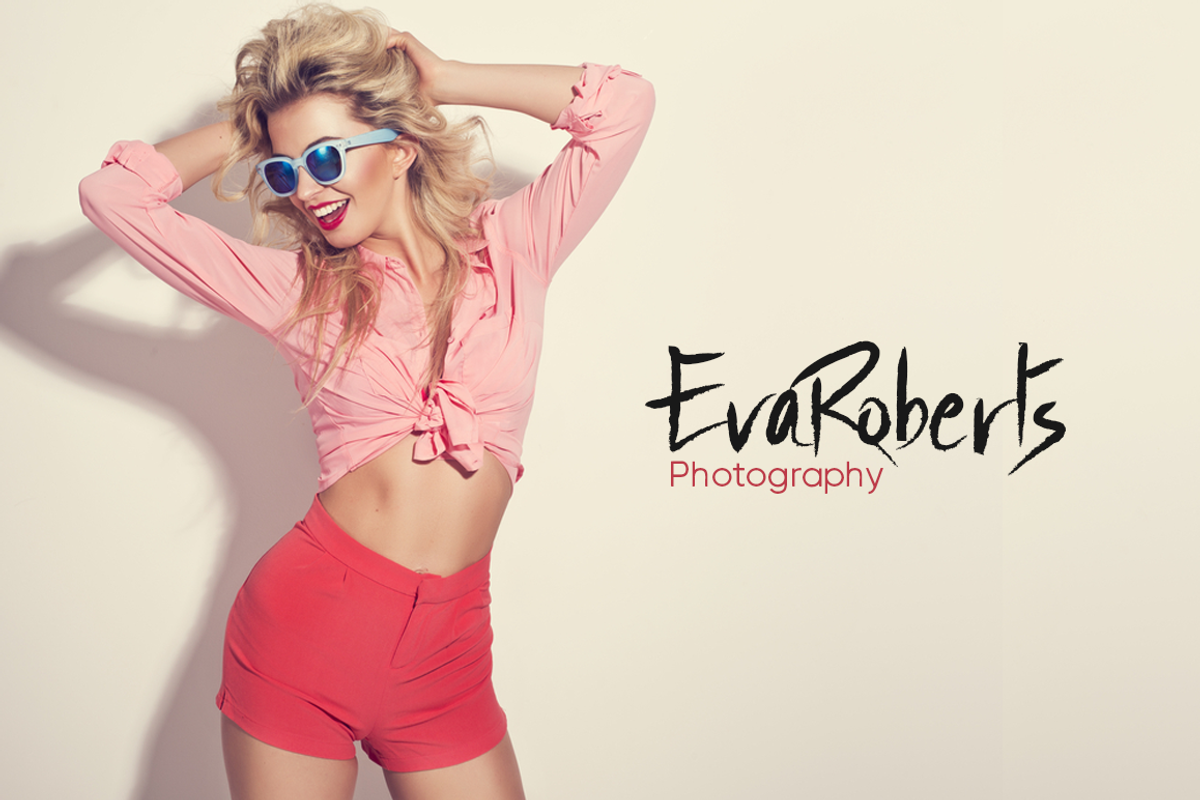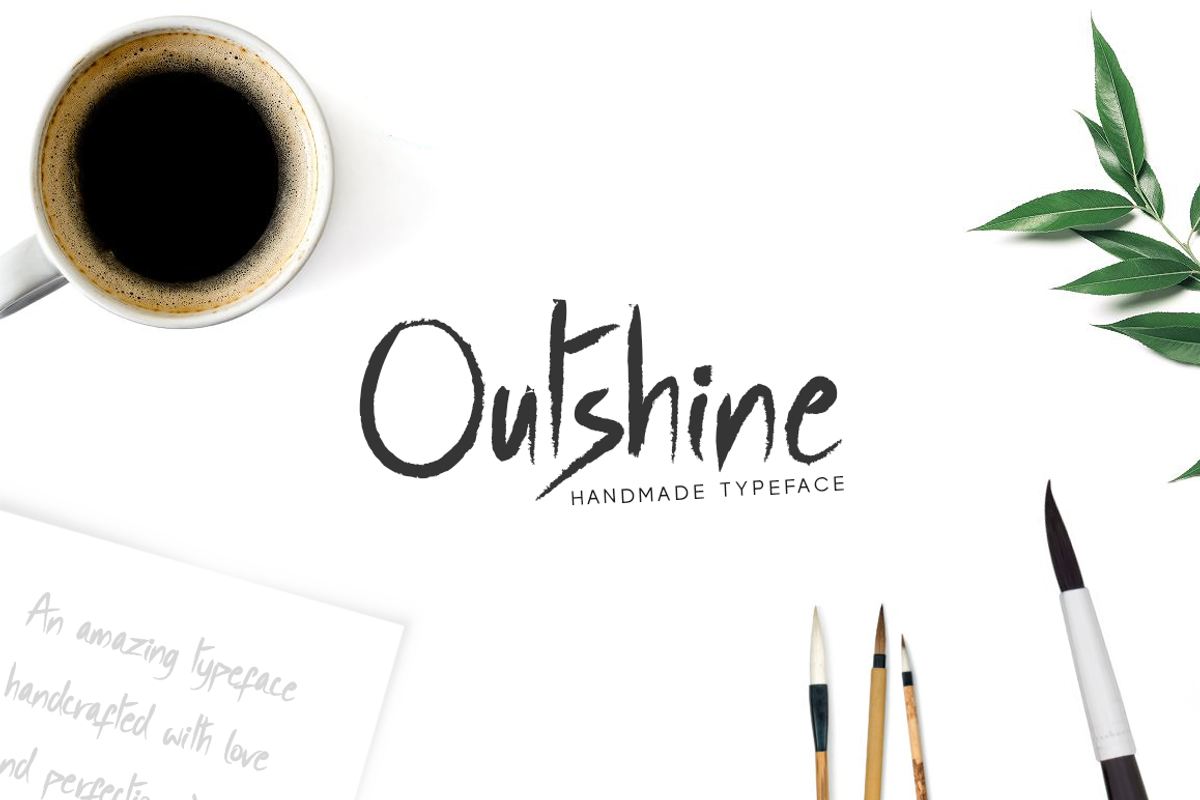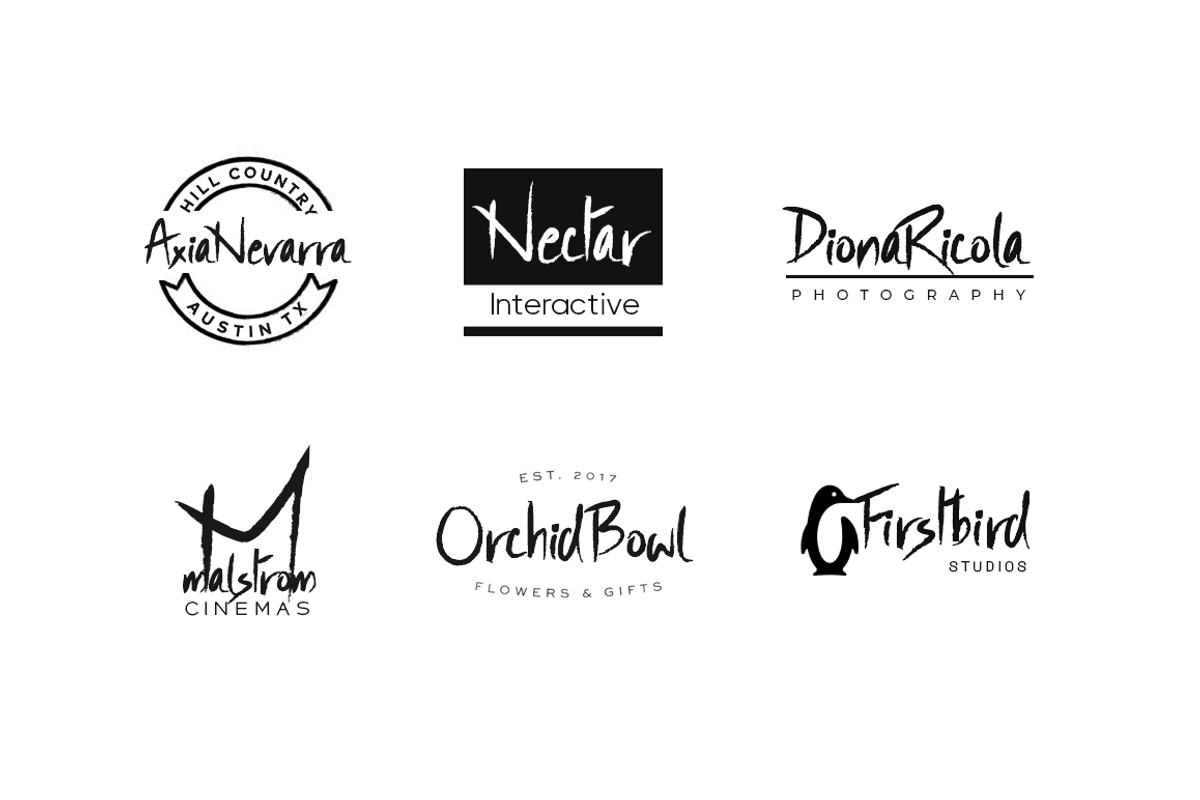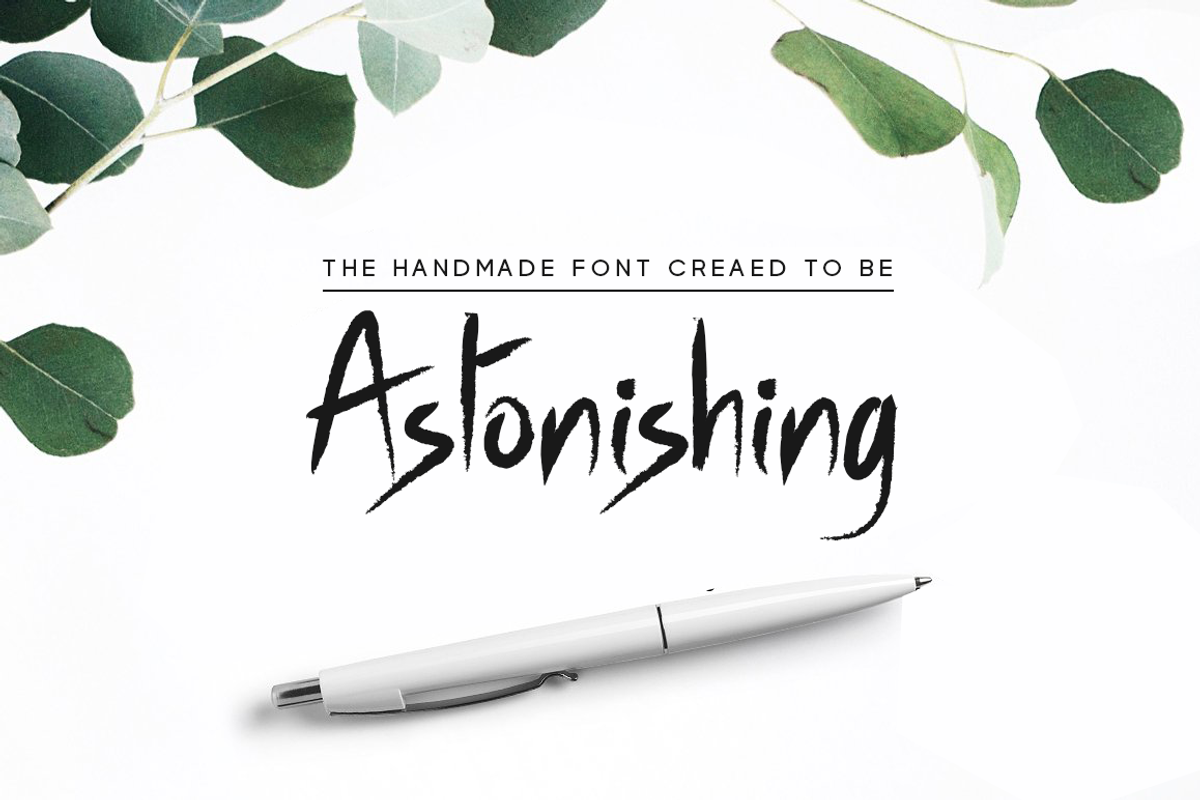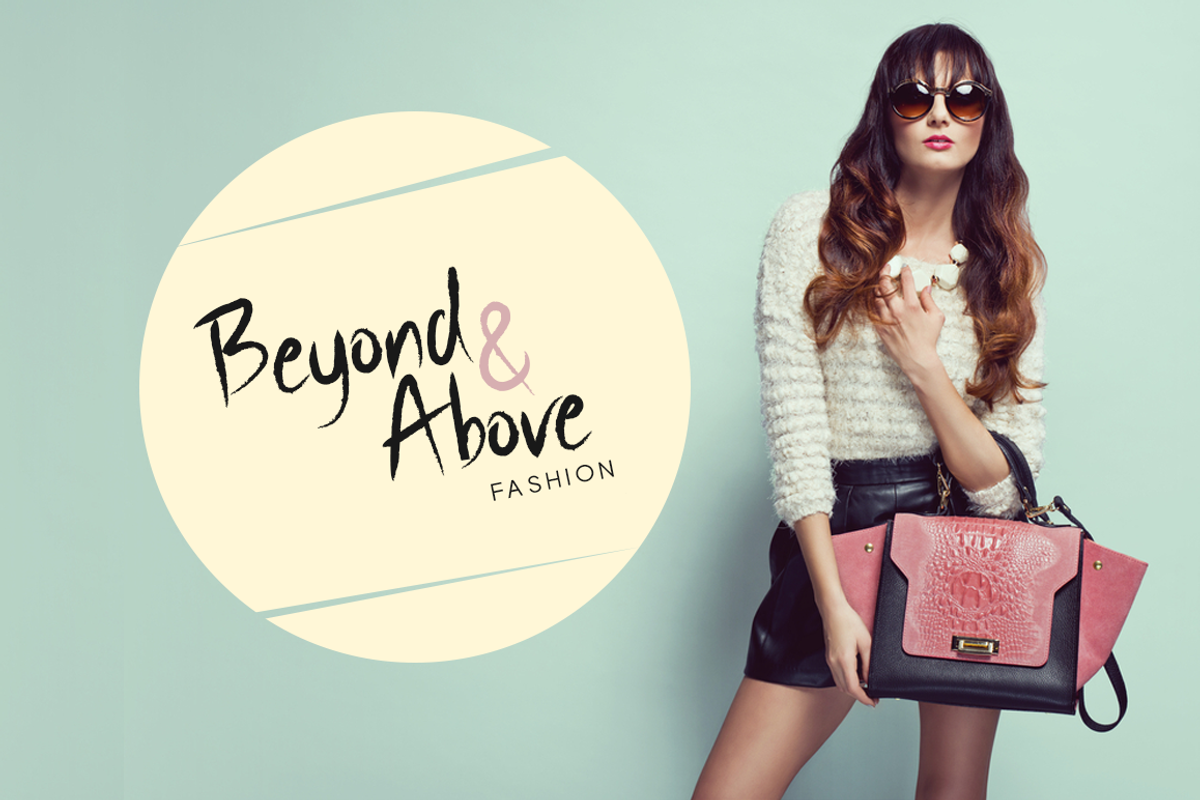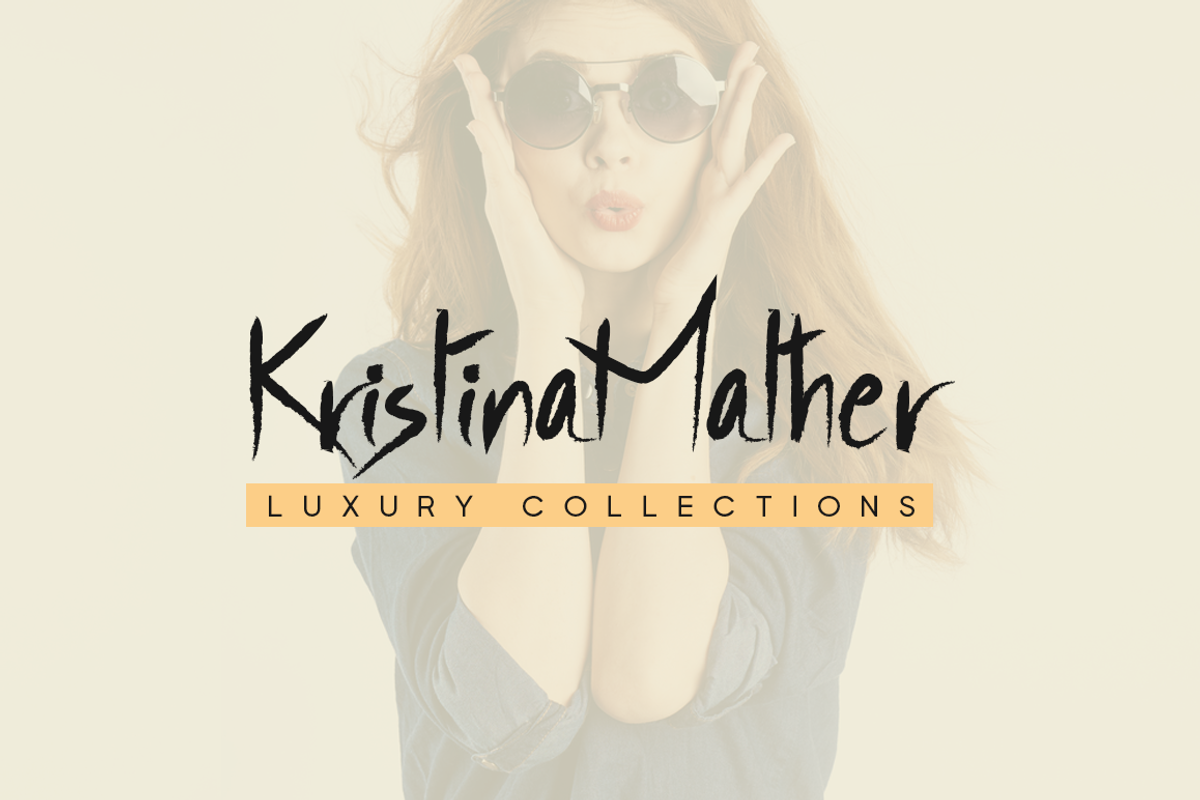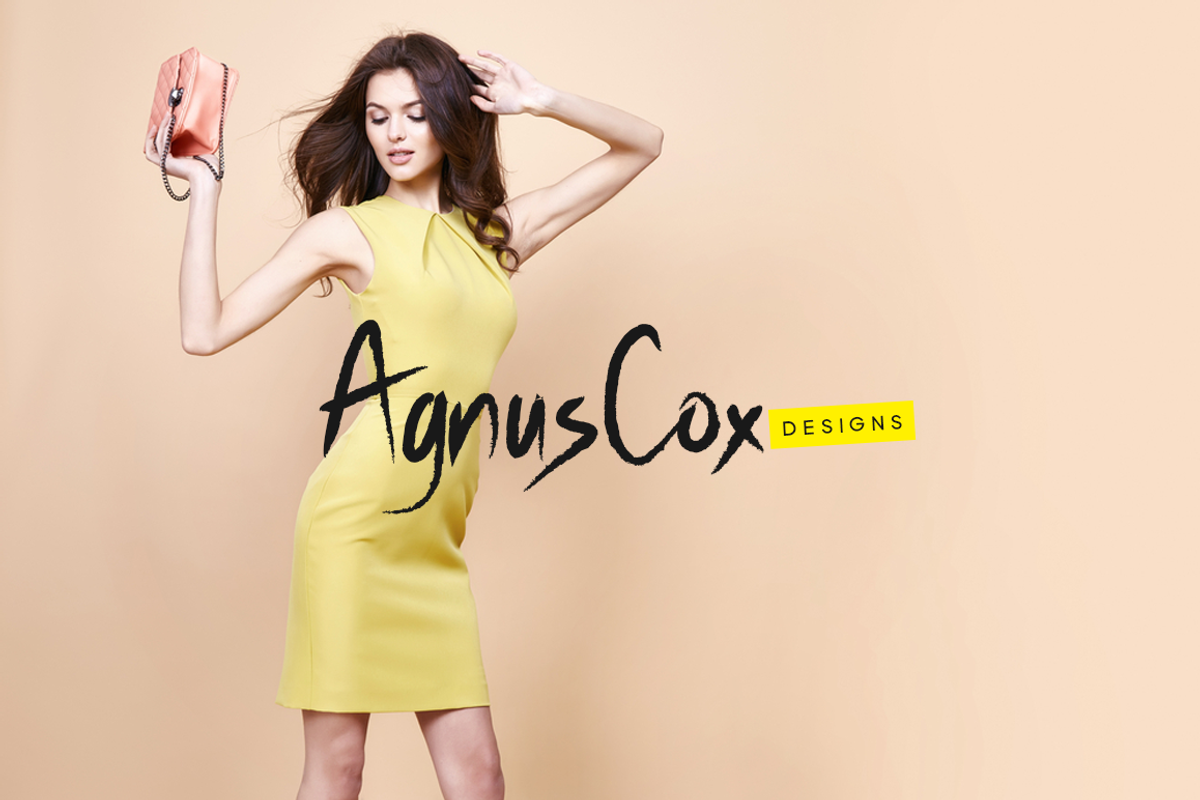
Outshine - Luxury / Handwritten Font
Outshine! A lovingly created, beautiful handwritten font with a special feel of it's own. Made with custom brushes, crafted with perfection and finest aesthetics, purely dedicated to branding and logo design projects. Performed extended kerning to make sure the font looks amazing on all possible letter combinations.
Outshine includes full set of uppercase and lowercase letters, symbols, numerals and punctuation. The font has a unique wet brush texture, so would be perfect for all types of design projects.
- Outshine includes full set of uppercase and lowercase letters, symbols, numerals and punctuation.